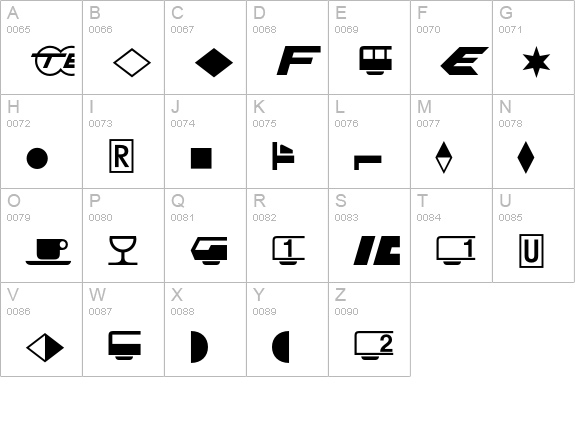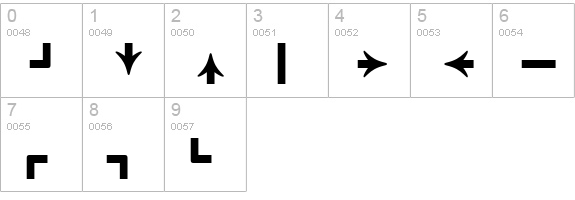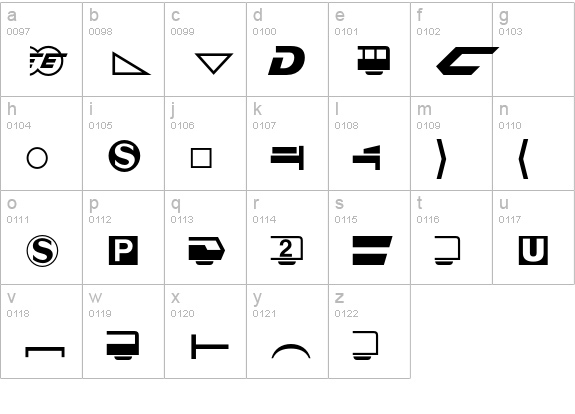
Bundesbahn Pi 2 Font Details
Bundesbahn Pi 2 font is a versatile and modern typeface that is perfect for a wide range of design projects. With its clean lines and bold characters, this font exudes professionalism and sophistication. Whether you are creating a logo, branding materials, or a website, Bundesbahn Pi 2 font will add a touch of elegance to your work. One of the best features of Bundesbahn Pi 2 font is that it is available for free download at FontsMarket.com. This means that you can easily access this high-quality font without any cost, making it a valuable resource for designers and creatives. Don't miss out on the opportunity to enhance your projects with the sleek and stylish Bundesbahn Pi 2 font today!